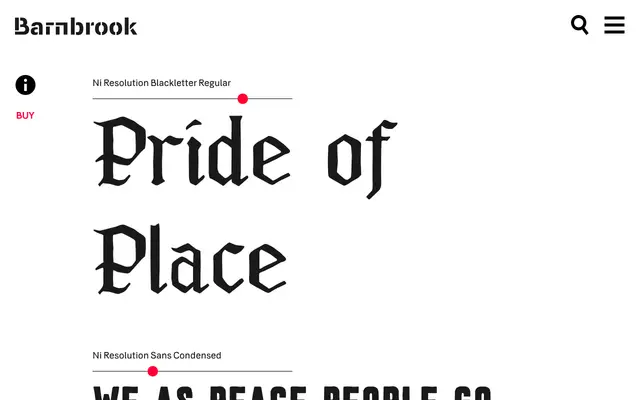
Resolution
A three-variant display family redrawn from hand-painted political murals across Northern Ireland, spanning loyalist and republican lettering traditions.
Barnbrook drew the six weights of Resolution directly from murals found in Belfast and Derry, tracing a visual history that runs from loyalist street painting through to the famous 'You are now entering Free Derry' wall. The blackletter combines lettering from both loyalist and republican sources; the sans derives primarily from loyalist murals; the slab is lifted from that single celebrated Free Derry corner, a site associated with the Battle of the Bogside and Bloody Sunday. The result is a typeface family with a specific political and geographic origin that no generic revival could replicate.
The family spans three stylistic variants — blackletter, slab and sans — all drawn from hand-painted mural lettering, making 'display' the most accurate umbrella category given the family's expressive, politically charged character.